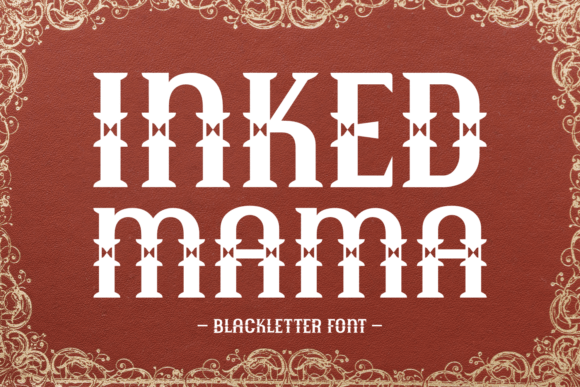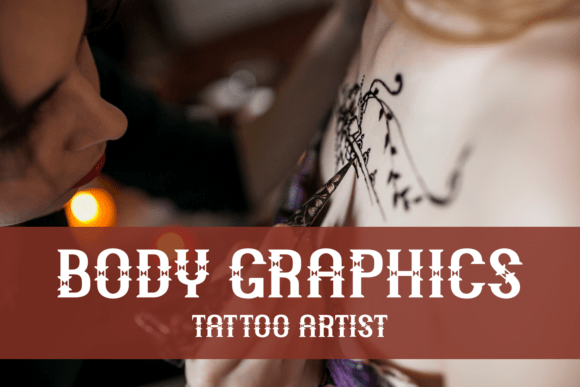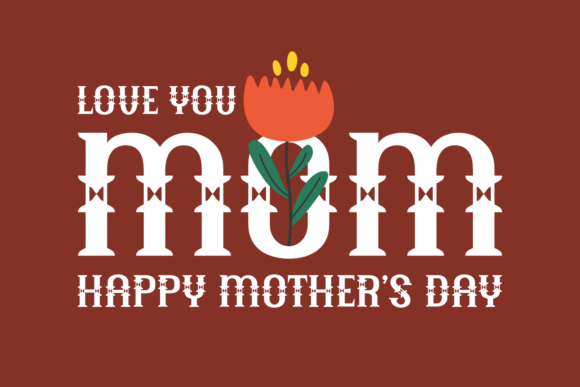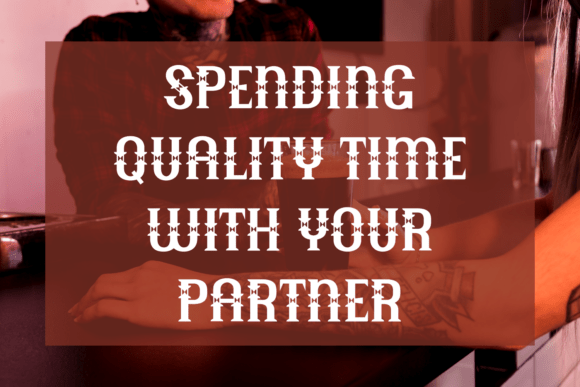
Inked Font
About the Inked Font
The Inked Font offers a perfect balance of form and function for your design needs. “Inked” is a tattoo-inspired display font that evokes the bold, edgy aesthetics of traditional tattoo lettering. Its uppercase characters are tall, with intricate decorative elements, including spikes and dots, creating a distinctive appearance. This font is perfect for projects that require a strong, rebellious, or artistic vibe, ideal for tattoo studios, posters, and creative branding materials. It supports accented characters and comes with a variety of punctuation marks to accommodate diverse languages.